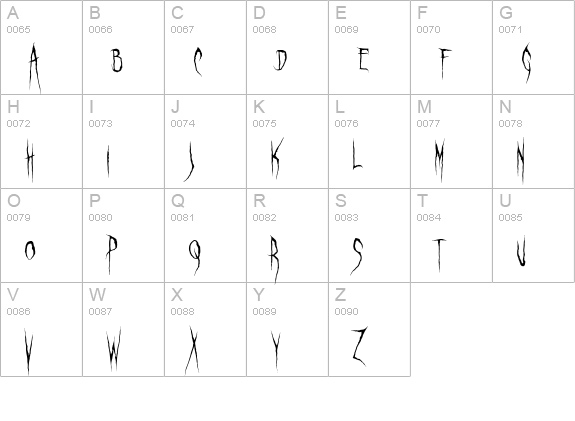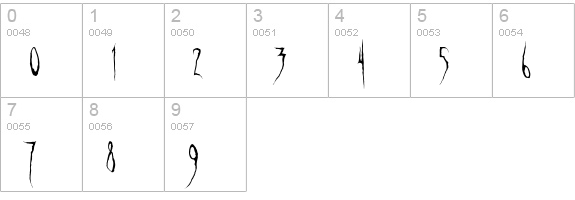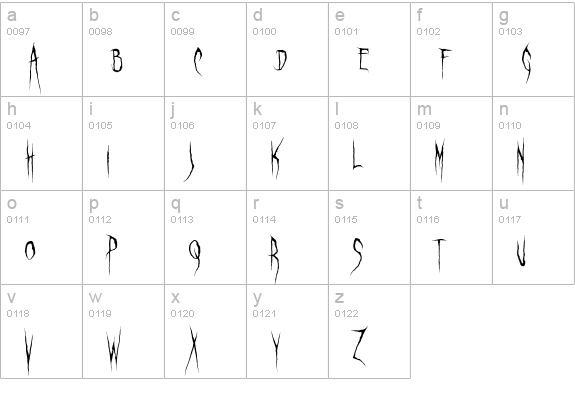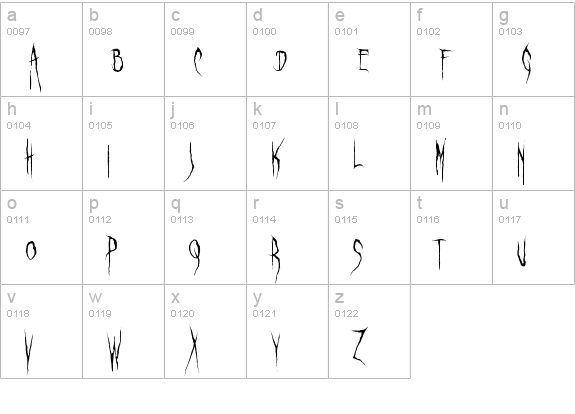
Ghastly Panic Font Details
Introducing the captivating Ghastly Panic font, a mesmerizing typeface designed to add a touch of intrigue and excitement to your projects. This font is a harmonious blend of elegance and boldness, making it the perfect choice for those who seek to make a statement with their typography. Ghastly Panic captures attention with its intricate details and unique letterforms that exude a sense of mystery and adventure. Each character is carefully crafted, showcasing a delicate balance between sharp edges and smooth curves. The result is a font that is both visually striking and easy to read, ensuring that your message is conveyed with clarity and sophistication. One of the most remarkable aspects of Ghastly Panic is that it is available absolutely free. Yes, you read that right - this extraordinary font can be downloaded at no cost from FontsMarket.com. We believe that creativity should not be limited by financial constraints, and thus, we offer Ghastly Panic as a gift to all designers and enthusiasts who are in search of a truly remarkable typeface. Whether you are working on a poster, a logo, a website, or any other design project, Ghastly Panic will undoubtedly elevate your work to new heights. Its versatility allows it to adapt to various styles and themes, making it suitable for a wide range of applications. From gothic-inspired designs to contemporary branding, this font is the perfect companion for those who dare to stand out from the crowd. So why wait? Unleash your creativity and download Ghastly Panic today, completely free of charge, at FontsMarket.com. Embrace the possibilities that this captivating font offers and let your imagination run wild. With Ghastly Panic, your designs will exude a sense of excitement and intrigue that will captivate audiences and leave a lasting impression.